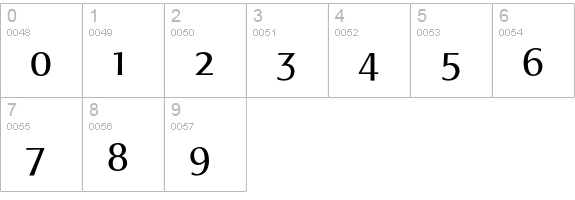
Signata Expert Regular is the standard, neutral variant in the Signata typeface family \xE2\x80\x94 well suited to general body text, paragraphs, and standard typographic work.
Signata Expert Regular is a beautifully designed font that exudes elegance and professionalism. Its clean and crisp lines make it perfect for a wide range of projects, from corporate branding to editorial design. The font strikes the perfect balance between modernity and sophistication, making it ideal for both digital and print media. With its versatile design, Signata Expert Regular can be used in both headings and body text, providing a consistent and visually pleasing look throughout your project. Its legibility ensures that your message will be conveyed clearly and effectively to your audience. One of the standout features of Signata Expert Regular is its extensive character set. It includes a wide range of special characters, ligatures, and alternates, giving you the creative freedom to add unique touches to your designs. Whether you're looking to add a decorative flourish or a subtle embellishment, this font has all the tools you need. The best part is that Signata Expert Regular is available for free download at FontsMarket.com. This means that you can enjoy all the benefits of this exceptional font without any cost. Simply head over to FontsMarket.com and start using Signata Expert Regular to elevate your design projects to new heights. In conclusion, Signata Expert Regular is a versatile and visually stunning font that is sure to impress. Its clean lines, extensive character set, and free availability make it a must-have for any designer or creative professional. So don't miss out on the opportunity to enhance your projects with this remarkable font. Visit FontsMarket.com today and start exploring the endless possibilities of Signata Expert Regular.